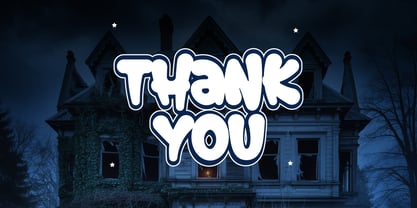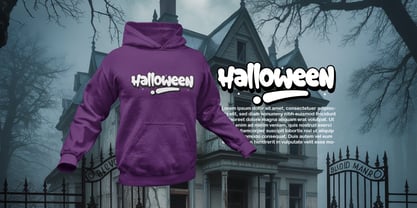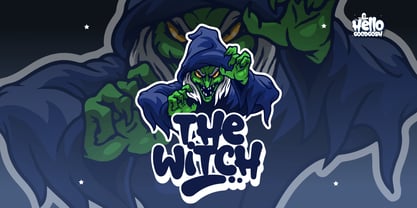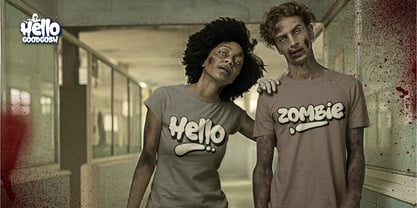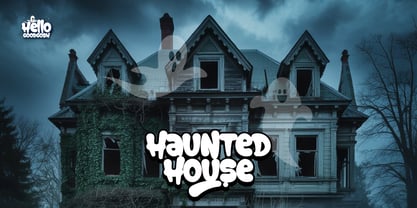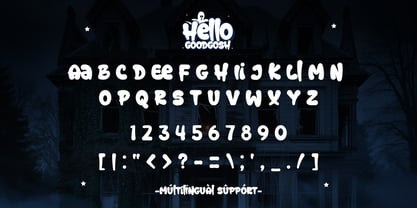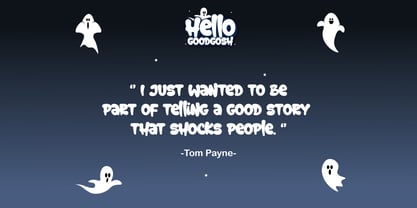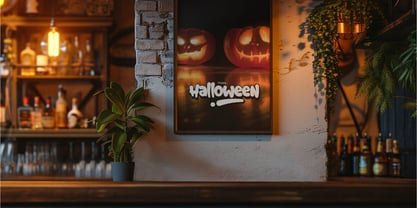
Hello Good Gosh
by Patlot Digital Studio
The Hello Good Gosh Font Family was designed by Gugun Gunawan and published by Patlot Digital Studio. Hello Good Gosh contains 1 styles. More about this family
Hello Goodgosh is a striking display font rich with vibrant graffiti essence and inspired by the iconic ghost-themed Movie.
This captivating typeface brings a playful feel to a variety of projects, whether it’s a unique twist on Halloween decor or charming trick-or-treating trinkets. From spooky party invitations to artistic touches on enchanting outfits,
Hello Goodgosh is a great choice. Its diverse applications go beyond the ordinary, livening up your porch decor with a touch of mystery or adding a touch of charm to your festival celebrations.
So, with the Hello Goodgosh font, get ready to make your Halloween celebrations not only spooky, but also festive.